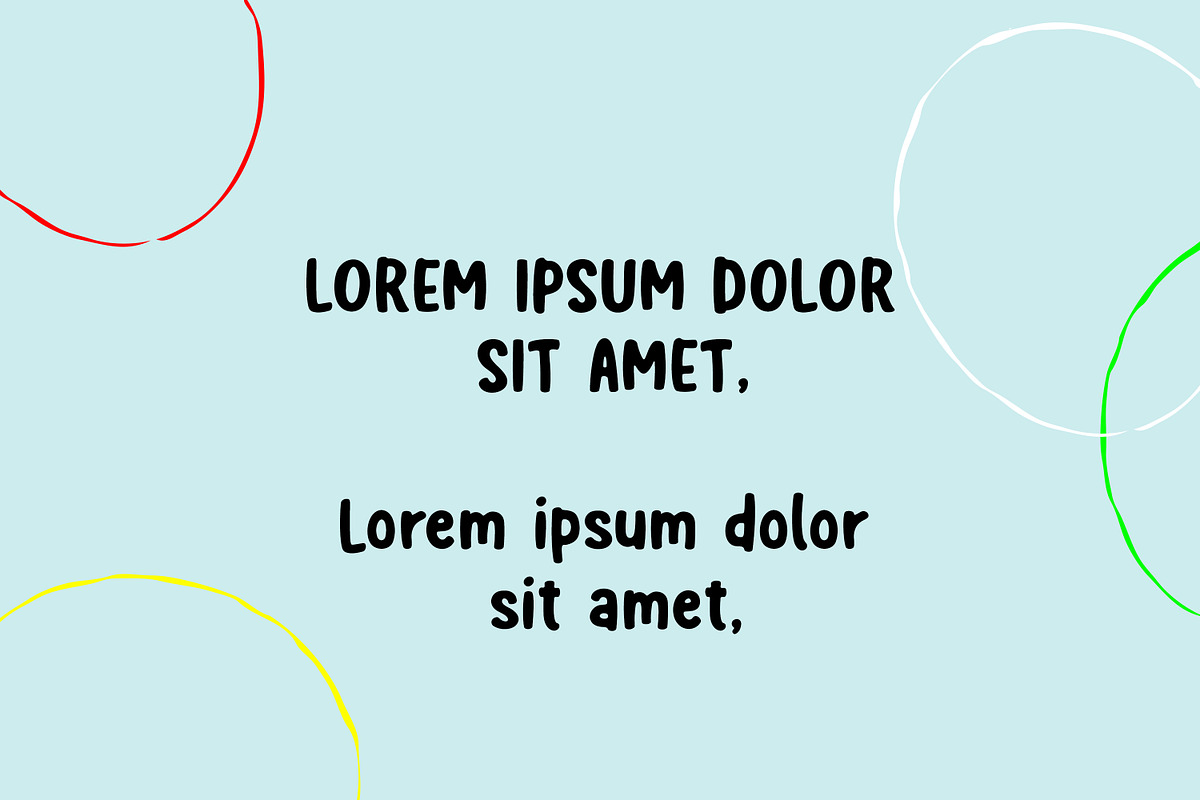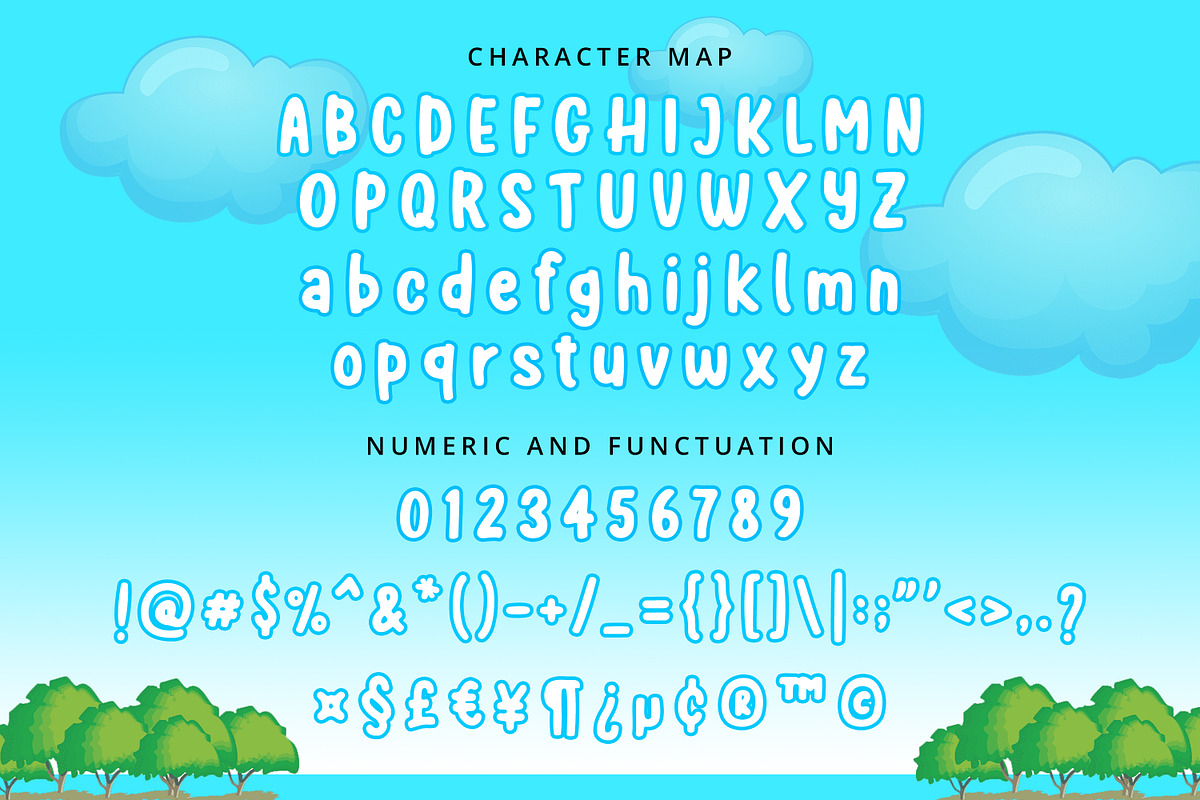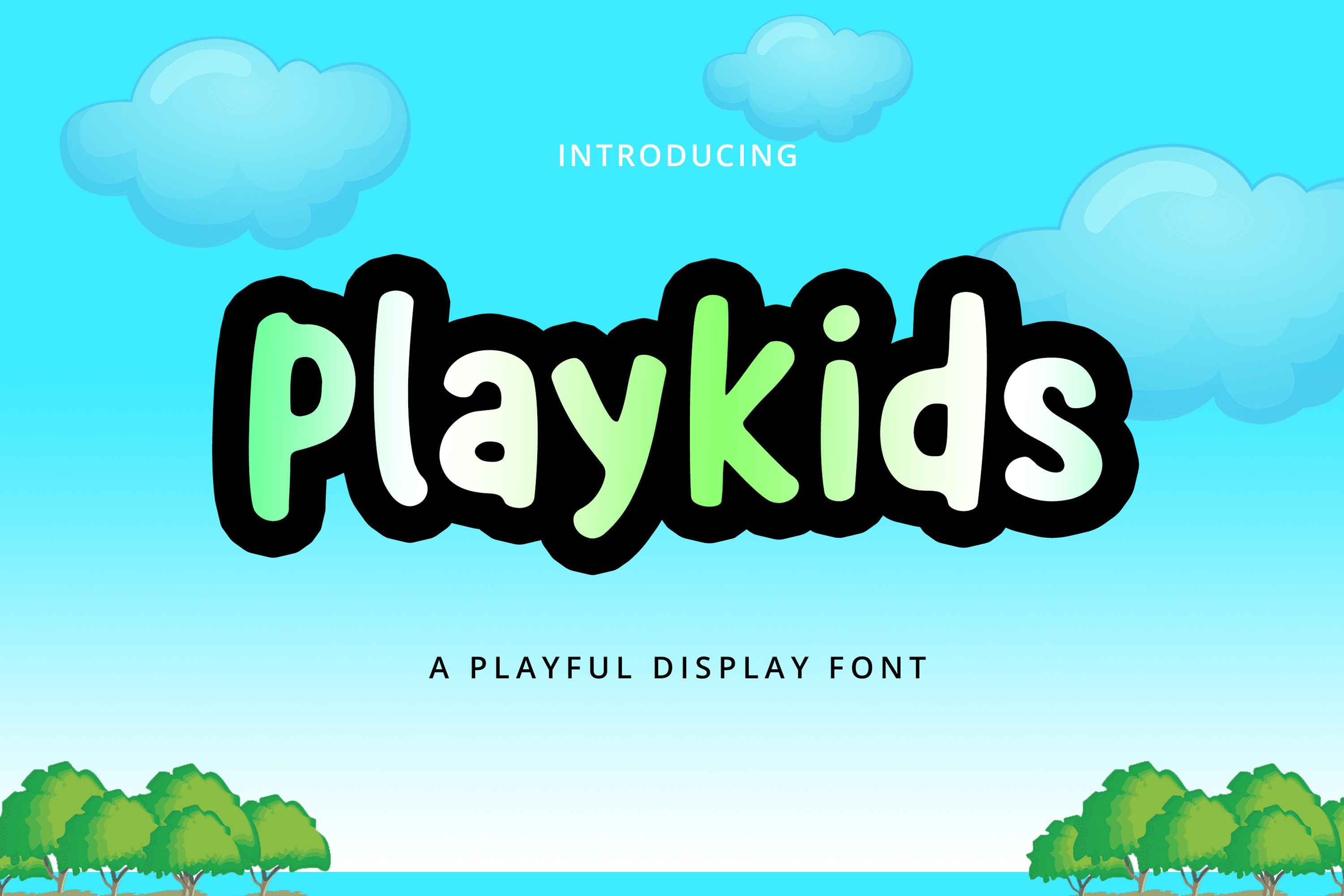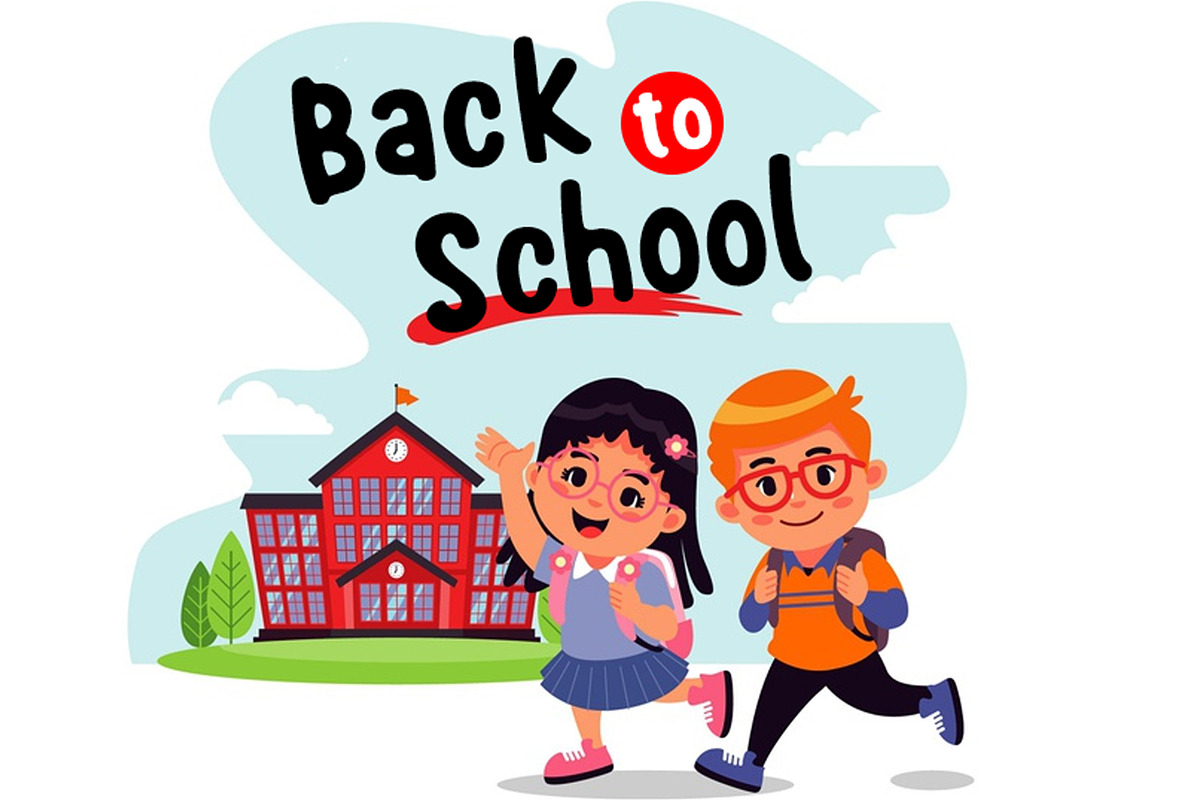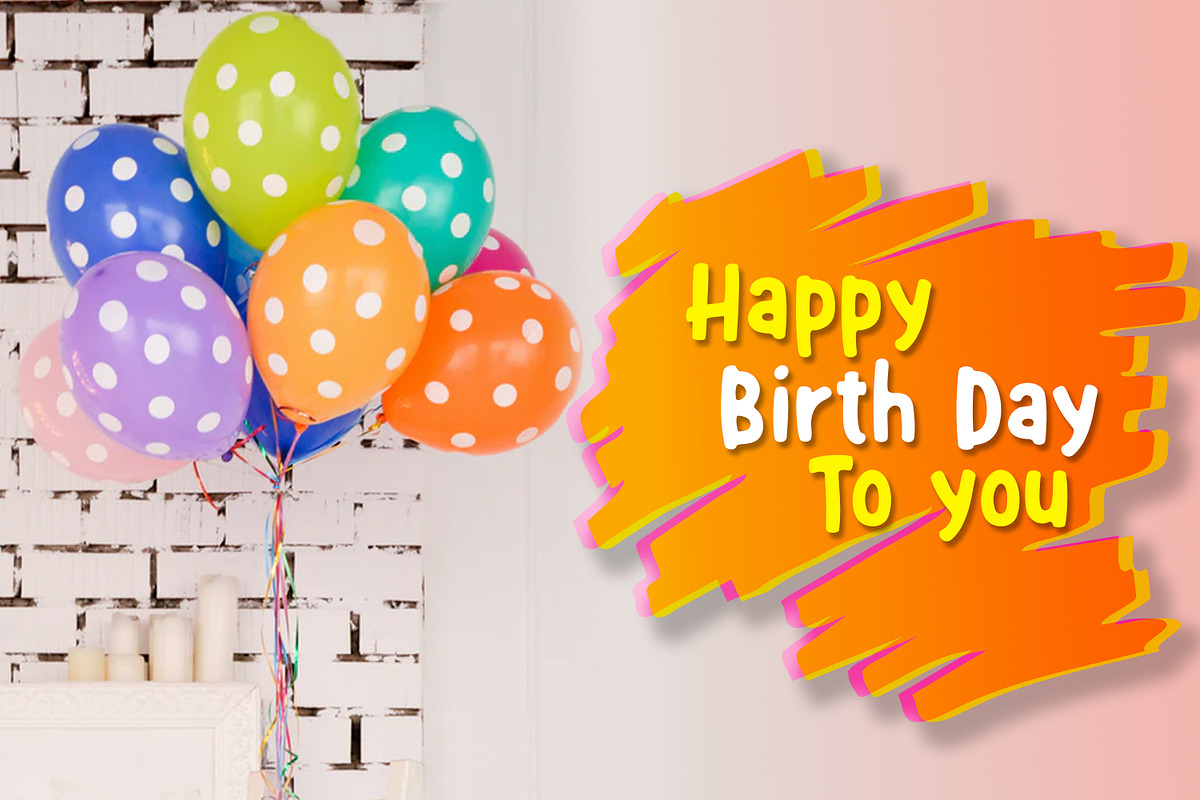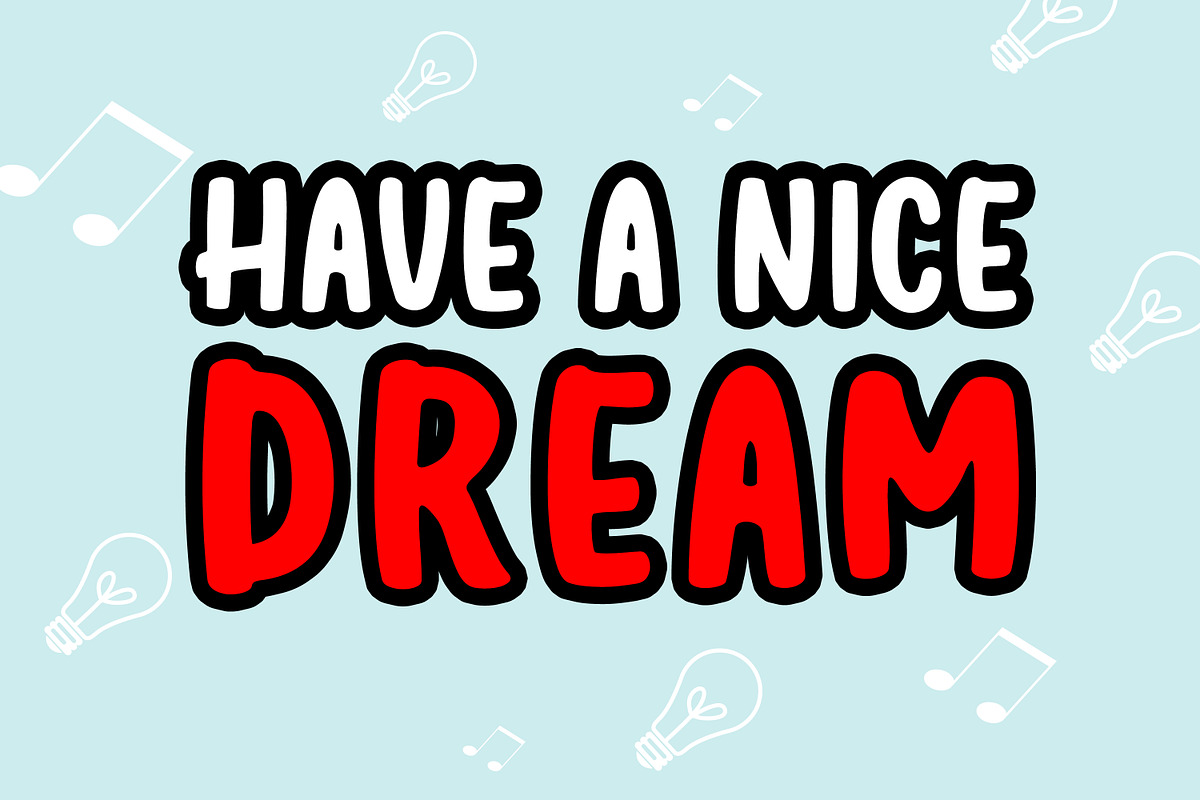
Playkids Font
Introducing Playkids Font, This typeface has classic style yet still looks great for modern design. They works perfect for you who needs a typeface for headline, logotype, apparel, invitation, branding, packaging, advertising etc.
Playkids Font Comes with upper-case only characters, basic punctuation, numerals, and supports international languages.